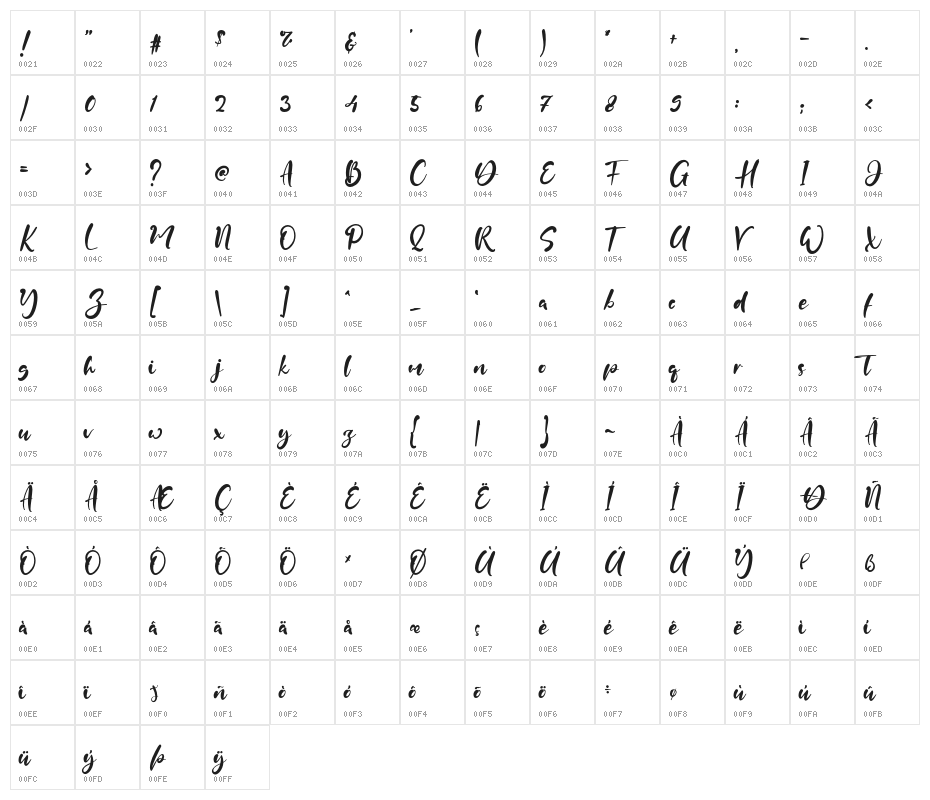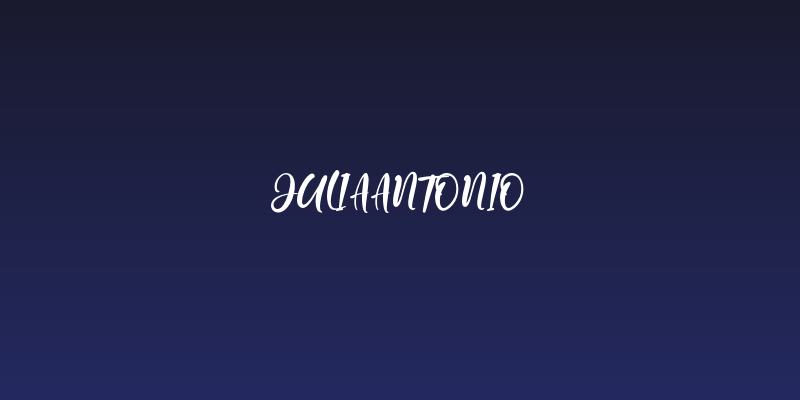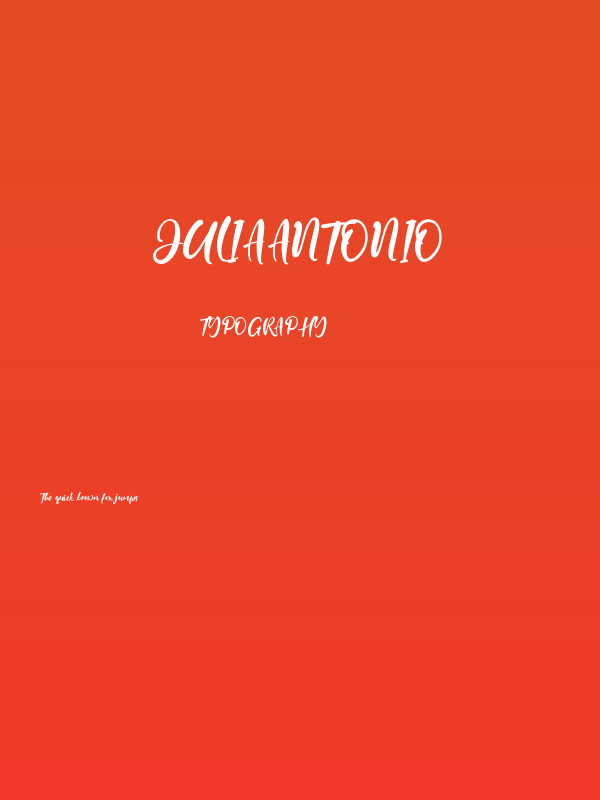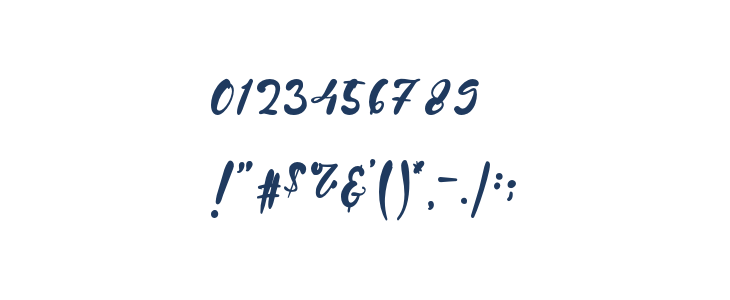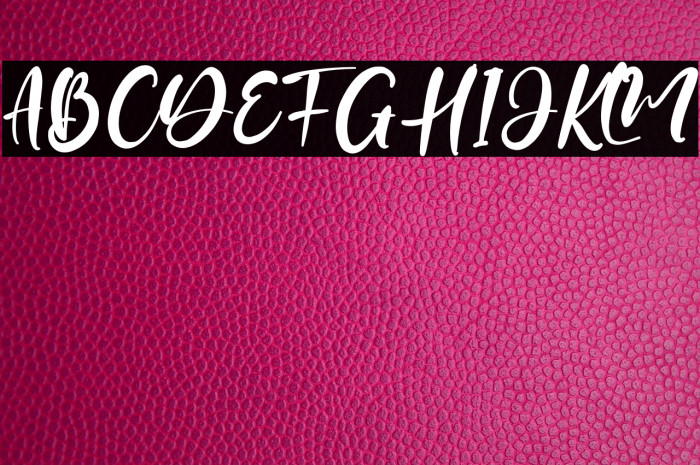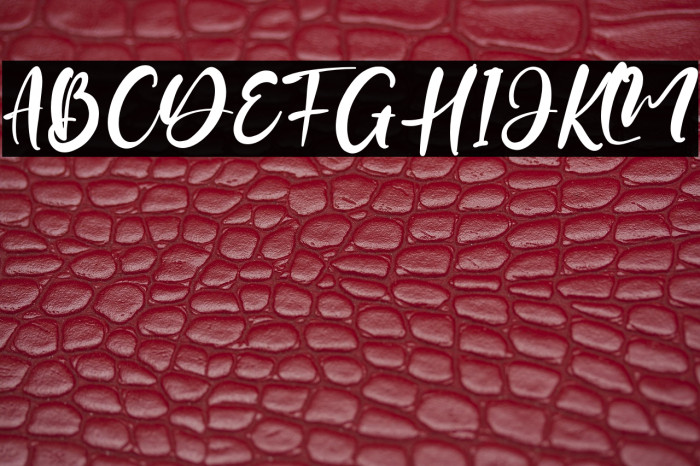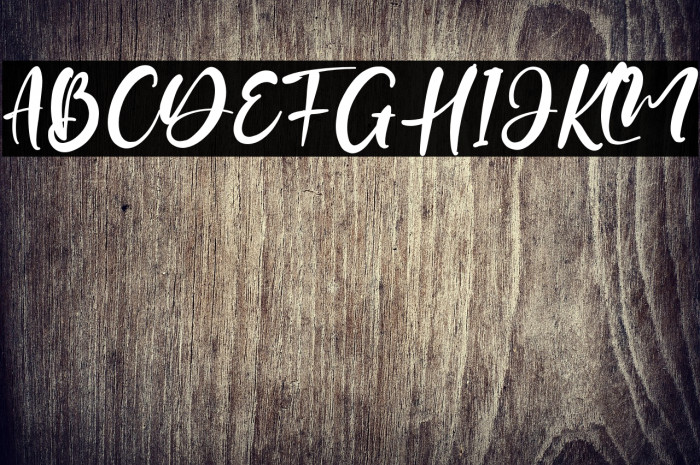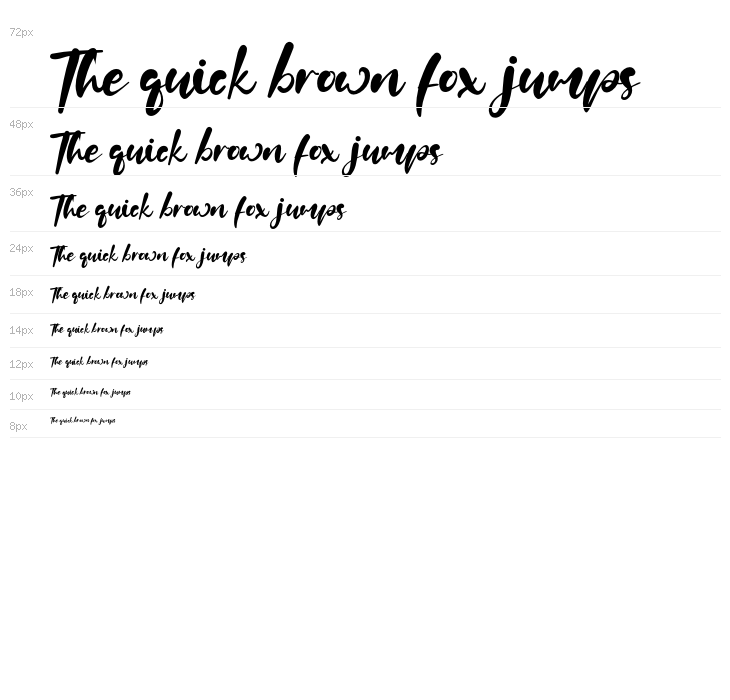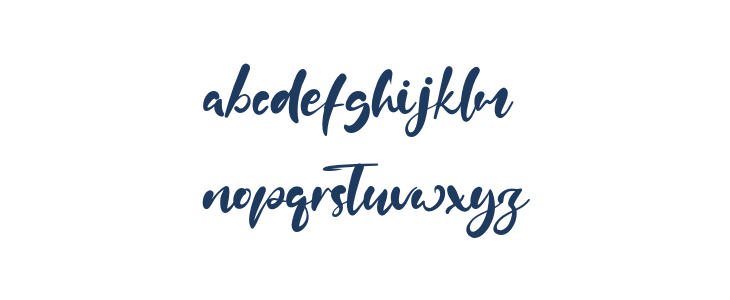
JuliaAntonio Font
JuliaAntonio Description
This font features a bold and expressive script style, characterized by its fluid and dynamic strokes. The uppercase letters exhibit a sense of movement, with varying stroke widths that add a lively and energetic feel. The lowercase letters maintain a consistent flow, enhancing readability while retaining a handwritten charm. Numbers and special characters are crafted with the same attention to detail, ensuring a cohesive look across all elements. The overall design is both elegant and playful, making it suitable for projects that require a personal touch.